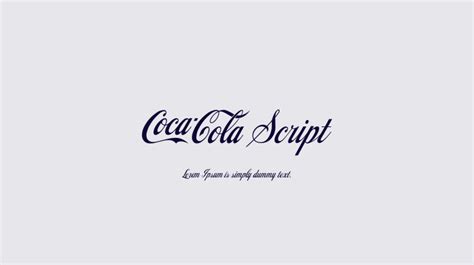
Unraveling The Iconic Coca-Cola Script Font
Unraveling the Iconic Coca-Cola Script Font
Hey guys, let’s talk about something truly iconic today: the Coca-Cola script font . You know it, you love it, and chances are, you’ve seen it a million times without really thinking about the sheer genius behind its design. But trust me , there’s a fascinating story here, and it’s not just about a pretty typeface; it’s about a masterclass in branding, history, and timeless design that continues to influence countless other brands globally. When we think of the Coca-Cola brand, the very first image that pops into most of our minds is that instantly recognizable, flowing script. It’s more than just letters; it’s a symbol of refreshment, nostalgia, and a global phenomenon. This particular script font has graced billboards, soda bottles, and merchandise for well over a century, becoming arguably one of the most famous and beloved logos in the entire world. It’s not just a logo; it’s a piece of art that evokes feelings, memories, and a universal sense of “the real thing.” Its elegance and distinctiveness make it instantly recognizable, even to those who don’t speak English. We’re going to dive deep into the origins of this incredible Coca-Cola font , explore why it has stood the test of time in an ever-changing market, and uncover the subtle yet profound design choices that make it so powerful and universally appealing. From its roots in a specific, popular type of penmanship prevalent in the late 19th century to its remarkable evolution into a global branding powerhouse, the story of the Coca-Cola script font is a captivating journey that highlights the enduring impact of thoughtful, deliberate design. So, grab your favorite bubbly drink (maybe a Coke, perhaps?), get comfy, and let’s unravel the magic behind those famous curves and loops that have captivated generations. It’s a testament to how a single, well-executed design element can transcend language and culture, creating an unbreakable, emotional bond with consumers worldwide, proving that some things, like great design, are truly timeless . We’ll look at its historical context, the brilliant minds behind its creation, and how it continues to adapt seamlessly while staying absolutely true to its original, iconic essence. Seriously, guys, this isn’t just about typography; it’s about the very soul of a brand and the art of leaving an indelible mark.
The Birth of a Legend: Spencerian Script
Alright, guys, let’s rewind to 1886, the year Coca-Cola first made its appearance. This is where the magic of the Coca-Cola script font truly begins, and it’s deeply rooted in a fascinating piece of typographic history: Spencerian script . This wasn’t just some random doodle; Spencerian script was the dominant formal handwriting style in the United States during the 19th century, taught in schools and used extensively in business correspondence. It was developed by Platt Rogers Spencer around 1850, emphasizing elegance, legibility, and speed. Think about it: before typewriters were commonplace, beautiful penmanship was a highly valued skill, almost an art form. This script was characterized by its flowing, connected letters, thin upstrokes, and thick downstrokes , giving it a graceful, almost dance-like quality. It was considered the epitome of professional and artistic handwriting, used for everything from formal documents to advertising. So, when Frank M. Robinson, the bookkeeper for Dr. John Pemberton (the creator of Coca-Cola), was tasked with creating a logo, he naturally turned to this popular and sophisticated style. He wasn’t just designing a logo ; he was capturing the essence of the times, leveraging a handwriting style that was instantly recognizable and associated with quality and refinement. Robinson’s choice of Spencerian script for the Coca-Cola font wasn’t just aesthetic; it was a brilliant strategic move. It lent an air of authenticity and handcrafted quality to the new beverage, suggesting it was something special, carefully created, and not just another mass-produced item. This connection to a familiar, respected handwriting style made the logo immediately approachable and trustworthy to the public. It’s pretty cool how something so integral to daily life at the time—like handwriting—could become the foundation for one of the world’s most enduring brand identities. The distinct features of Spencerian, with its elegant flourishes and consistent slant, translated perfectly into a memorable visual that would soon become synonymous with the refreshing drink. Robinson’s stroke of genius wasn’t just in picking a font; it was in selecting a cultural touchstone that resonated deeply with the era, setting the stage for over a century of iconic branding.
Origins of Spencerian Penmanship
Spencerian penmanship emerged in the mid-19th century as a response to the need for a standardized, efficient, and aesthetically pleasing handwriting style. Platt Rogers Spencer developed it with a focus on fluidity and minimal effort, making it ideal for both business and personal correspondence. Unlike the more rigid copperplate script, Spencerian allowed for greater speed and expression, characterized by its characteristic oval forms and connecting strokes. This artistic yet practical approach quickly made it the most popular handwriting system in American schools and businesses.
Frank M. Robinson’s Stroke of Genius
When it came to naming and branding the new beverage, Frank M. Robinson played a pivotal role. He suggested the name “Coca-Cola,” believing that “the two Cs would look well in advertising.” More importantly, it was Robinson who hand-drew the now-famous logo using the Spencerian script that he himself was proficient in. His choice was not only aesthetically pleasing but also a masterstroke in marketing. By utilizing a script that embodied professionalism and elegance, he gave the nascent brand an air of sophistication and established quality right from the start. This single act set the visual foundation for a global empire.
Why the Coca-Cola Font Endures
So, what makes the Coca-Cola script font so incredibly resilient and enduring, especially in a world where brands constantly rebrand and redesign? It’s not just luck, guys; it’s a testament to masterful design principles and a deeply ingrained connection with consumers that few other logos can boast. One of the primary reasons for its longevity is its timeless aesthetic . The Spencerian script, while rooted in the 19th century, possesses an inherent elegance and fluidity that transcends specific eras. It doesn’t look dated because it was never trendy in the fleeting sense; it was a classic from the start. The continuous flow of the letters, the balance between thick and thin strokes, and the graceful flourishes create a sense of movement and harmony that is universally appealing. It’s beautiful without being overly ornate, striking a perfect balance between simplicity and sophistication. This makes the Coca-Cola font inherently adaptable across different cultures and contexts without losing its core identity. Furthermore, the psychological impact of this particular font cannot be overstated. The flowing, soft curves evoke feelings of friendliness, warmth, and nostalgia. Unlike sharp, angular fonts that might suggest modernity or aggression, the Coca-Cola script feels inviting and familiar. It connects with our subconscious desire for comfort and pleasant experiences. For generations, this script has been associated with happy moments, celebrations, and simple pleasures, building a powerful emotional bond with consumers. This emotional resonance makes it incredibly difficult, and frankly, unnecessary, to change. Why mess with perfection, right? People don’t just recognize the logo; they feel something when they see it. Finally, there’s the element of global recognition and consistency . Coca-Cola has meticulously maintained this iconic script font across all its branding efforts worldwide for over a century. This unwavering consistency has built unparalleled brand equity. Whether you’re in New York, Tokyo, or Timbuktu, that familiar red script instantly signals “Coca-Cola.” This global ubiquity has turned the logo into a universal language of refreshment. It’s a prime example of how maintaining a consistent visual identity over time can create a legacy that is truly unbreakable . It communicates trust, reliability, and heritage, deeply reinforcing the brand’s message without uttering a single word. That’s some serious branding power, folks!
A Timeless Aesthetic
The inherent beauty of the Coca-Cola script font lies in its classical proportions and flowing nature. Drawing from Spencerian principles , it achieves a perfect balance between form and function. The graceful curves and connections between letters create a visual rhythm that is pleasing to the eye, ensuring it remains relevant despite changing design trends. It’s a testament to the idea that truly good design is enduring.
Psychological Impact on Consumers
Beyond aesthetics, the font has a profound psychological impact . Its soft, rounded edges and familiar, almost handwritten feel evoke feelings of warmth, authenticity, and comfort. It doesn’t scream at you; it invites you in. This gentle visual language helps to foster a sense of trust and nostalgia, contributing significantly to the brand’s beloved image and its universal appeal across demographics.
Global Recognition and Consistency
Perhaps one of the most remarkable aspects of the Coca-Cola script font is its unparalleled global recognition. Through over a century of consistent application across every market, product, and advertisement, the script has become a universally understood symbol. This unwavering consistency has ingrained the logo into the global consciousness, making it instantly identifiable as Coca-Cola, regardless of language or cultural background. It’s a masterclass in building brand equity through visual steadfastness.
Beyond the Bottle: Evolution and Adaptation
Even a classic like the Coca-Cola script font has to navigate the ever-evolving landscape of design and technology, guys. While the core essence of the font has remained steadfast, its application and subtle interpretations have indeed evolved to meet the demands of modern branding, particularly in the digital age . Back in the day, the logo was hand-drawn for print and painted signs. Today, it lives on screens of all sizes, from smartwatches to giant LED billboards, and has to look just as sharp and recognizable. This presents unique digital age challenges . Ensuring the intricate details of the Spencerian script, like the thin upstrokes and thick downstrokes, remain legible and impactful at varying resolutions and sizes is no small feat. The brand’s design teams have expertly adapted the original design for digital use, often simplifying very fine details subtly to prevent pixelation while preserving the overall character and elegance of the Coca-Cola font . They’ve also had to consider how the logo interacts with motion graphics, animated ads, and responsive web designs, ensuring it maintains its iconic presence across all these new mediums without ever feeling forced or out of place. This continuous, thoughtful adaptation is crucial for any legacy brand aiming to stay relevant. We’ve also seen various modern interpretations and brand extensions that play with the font while honoring its heritage. Think about the sleek, minimalist versions used in some marketing campaigns, or even the playful, slightly deconstructed versions seen in collaborations with artists or fashion brands. These aren’t wholesale redesigns; rather, they are clever homages that explore the boundaries of the original design without ever straying too far from its recognizable roots. This flexibility allows Coca-Cola to appeal to new, younger demographics while simultaneously reassuring its long-standing loyal customers. It’s a delicate balancing act, trust me . The key here is maintaining authenticity . No matter how many different applications or interpretations surface, the core visual identity of the Coca-Cola script font must always shine through. The brand has been incredibly disciplined in protecting its visual integrity, understanding that this consistency is what underpins its global recognition and emotional connection with consumers. They’ve found ways to innovate and evolve without sacrificing the timeless qualities that make the font so special, proving that true classics can indeed adapt and thrive in any era. It’s a powerful lesson for any brand looking to build a lasting legacy.
Digital Age Challenges
In the digital age, adapting a complex script like the Coca-Cola font for various screen resolutions and digital platforms presents a unique set of challenges. Designers must ensure the logo’s intricate details remain crisp and legible, preventing issues like pixelation or loss of character. This often involves careful optimization, sometimes slightly simplifying the finest strokes for digital scalability without compromising its iconic look.
Modern Interpretations and Brand Extensions
While the core Coca-Cola script font remains sacred, the brand has explored modern interpretations for specific campaigns or collaborations. These might include subtly altered versions, animated treatments, or even deconstructed elements that play with the font’s distinct characteristics. The goal is always to create fresh, engaging visuals that resonate with new audiences while still clearly referencing the beloved original, proving its versatility.
Maintaining Authenticity
Despite these adaptations, the paramount concern for Coca-Cola has always been maintaining the authenticity of its script. The brand understands that its visual identity is a cornerstone of its heritage and global recognition. Any evolution must be carefully managed to ensure the fundamental character and emotional resonance of the Coca-Cola font are preserved, safeguarding its legacy for future generations.
Crafting Your Own Brand Identity: Lessons from Coca-Cola
Alright, guys, after diving deep into the fascinating world of the Coca-Cola script font , you might be thinking, “What can I learn from this for my own brand or project ?” Well, plenty, trust me . The Coca-Cola story isn’t just about a soda; it’s a masterclass in brand building, and its logo is a prime example of how to create something truly indelible. The biggest lesson we can take from Coca-Cola’s legacy is the power of simplicity and timelessness in design. They didn’t chase trends; they created a classic. When you’re selecting a font or designing a logo, don’t just pick what’s popular right now. Think about whether it will still look good, still feel relevant, and still communicate your core message decades from now . A design that is inherently elegant and well-crafted, much like the Spencerian script, will have far greater longevity than something overly complex or tied to a fleeting fad. Focus on clarity, uniqueness, and emotional resonance. Does your logo evoke the right feelings? Does it tell your brand’s story visually? These are critical questions. Next up, let’s talk about consistency . This is probably the most understated yet powerful element of Coca-Cola’s success. For over 130 years, that Coca-Cola font has been virtually unchanged across every single touchpoint. This unwavering consistency has hammered its identity into the global consciousness. For your brand, this means once you decide on your visual elements – your logo, your colors, your fonts – stick with them . Use them everywhere: your website, social media, business cards, products, and advertising. Every time someone encounters your brand, they should see a consistent visual message. This builds trust, recognition, and brand equity over time. People need repeated exposure to connect with and remember a brand, and consistency is how you achieve that memorability. Also, consider the origin and story behind your design choices. Just like the Coca-Cola script font rooted in elegant Spencerian penmanship, a design with a meaningful backstory can add layers of authenticity and depth to your brand. Even if it’s a modern, digital-first brand, think about why you chose certain elements. Does the font reflect your brand’s personality? Do the colors convey your values? These narratives, even if subtle, can greatly enhance how people perceive and connect with your brand. Ultimately, guys, the takeaway is clear: invest in a thoughtful, high-quality design that can stand the test of time, maintain impeccable consistency, and infuse your brand identity with a meaningful story. Do that, and you’re well on your way to creating something truly iconic, just like the Coca-Cola legacy.
Lessons from Coca-Cola’s Legacy
The enduring success of the Coca-Cola script font offers invaluable lessons for aspiring brands. Foremost among them is the power of timeless design over fleeting trends. By selecting an aesthetic that was inherently classic and elegant, Coca-Cola ensured its visual identity would remain relevant for generations. It underscores the importance of creating a logo that isn’t just appealing now, but will stand strong decades into the future .
Tips for Font Selection
When choosing a font for your brand, think critically. Does it align with your brand’s personality and values? Is it legible across various platforms and sizes? Consider the emotional impact —does it evoke the desired feelings in your audience? Just as the Coca-Cola font conveys warmth and tradition, your font should communicate your unique message. Prioritize clarity, distinctiveness, and long-term viability over short-term fads.
The Power of Consistency
Perhaps the single most critical lesson is the unwavering consistency in applying the Coca-Cola script font . For over a century, its visual identity has been maintained globally, building immense brand equity and recognition. For your own brand, this means establishing clear brand guidelines and adhering to them meticulously across all marketing materials, digital platforms, and product packaging. Consistency builds trust and makes your brand unforgettable.
Conclusion
So there you have it, guys. The Coca-Cola script font isn’t just a pretty arrangement of letters; it’s a profound example of how design, history, and unwavering consistency can converge to create a global icon. From its roots in elegant Spencerian penmanship to its triumphant journey through the digital age, this font has proven its resilience and timeless appeal. It speaks volumes about the power of a well-crafted visual identity to transcend cultures, evoke emotions, and build an unbreakable bond with consumers. This iconic script is a testament to the idea that some things, when designed with care and respect for their heritage, can truly last forever, continuing to inspire designers and delight consumers generation after generation. It’s a reminder that sometimes, the simplest and most classic designs are the ones that leave the deepest, most lasting impact. And that, my friends, is why the Coca-Cola font will forever be a legend in the world of branding and typography.